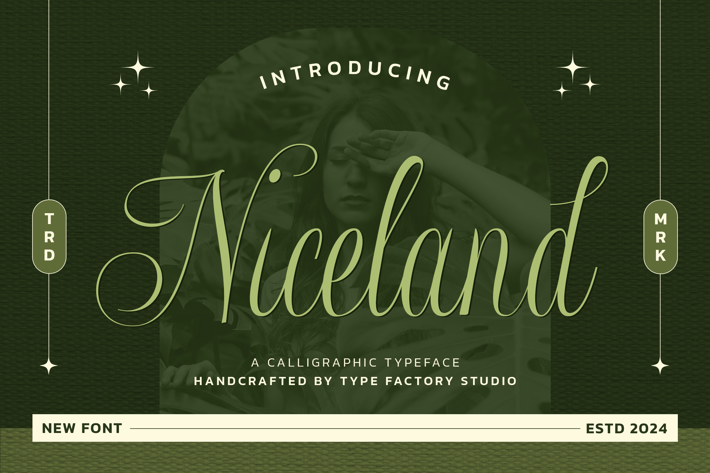
Niceland - Calligraphic Typeface
Niceland is a graceful calligraphic typeface that captures the elegance and fluidity of traditional handwriting.
With its flowing curves and refined strokes, Niceland is perfect for invitations, wedding stationery, logos, and branding that demand a touch of sophistication and artistry.
This typeface blends classic calligraphic beauty with modern design, making it ideal for projects that need to convey a sense of elegance and warmth.
Whether in print or digital, Niceland brings a touch of finesse and charm to any design.